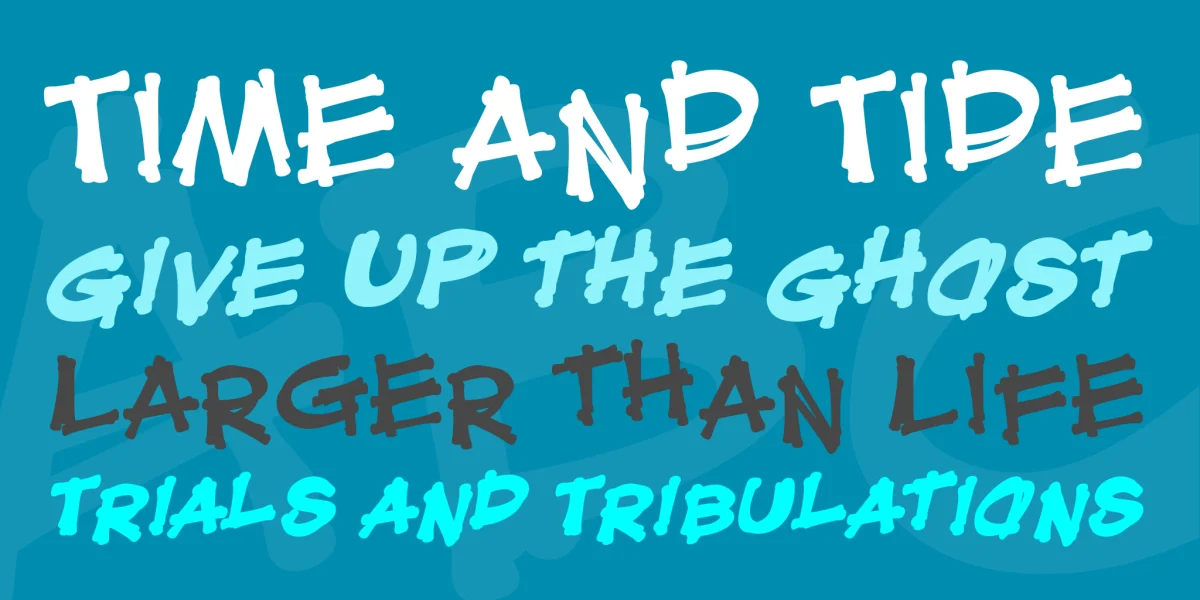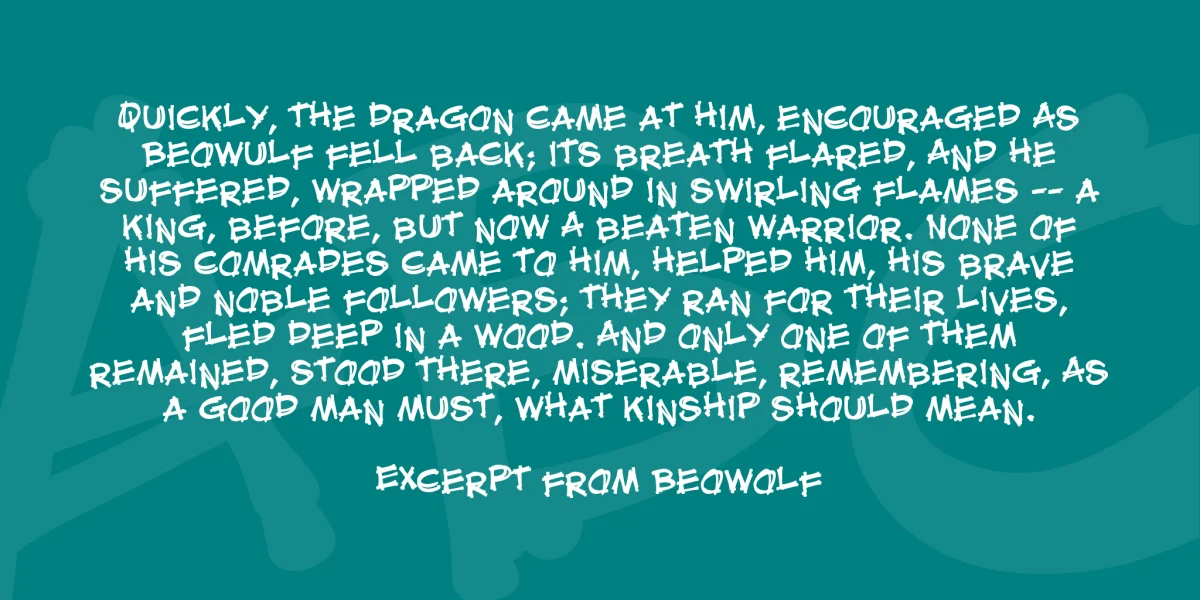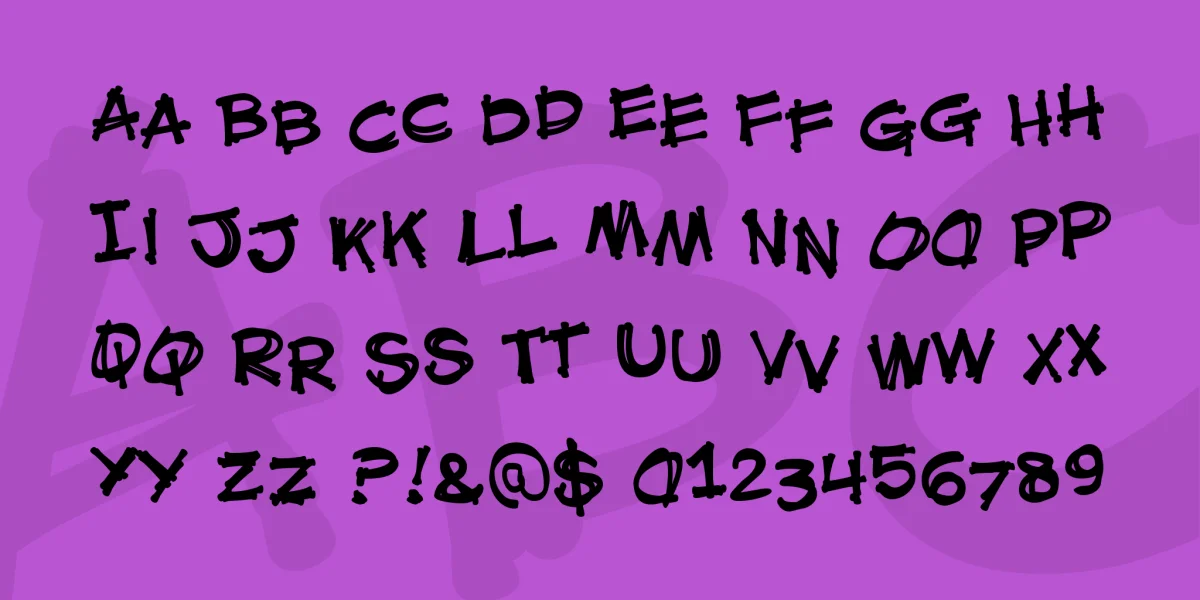
Got a big psychopathic weirdo in your comic? MOUTH BREATHER is just right for his rambling monologues and spit-snuffling curses. Regular and Bold included.